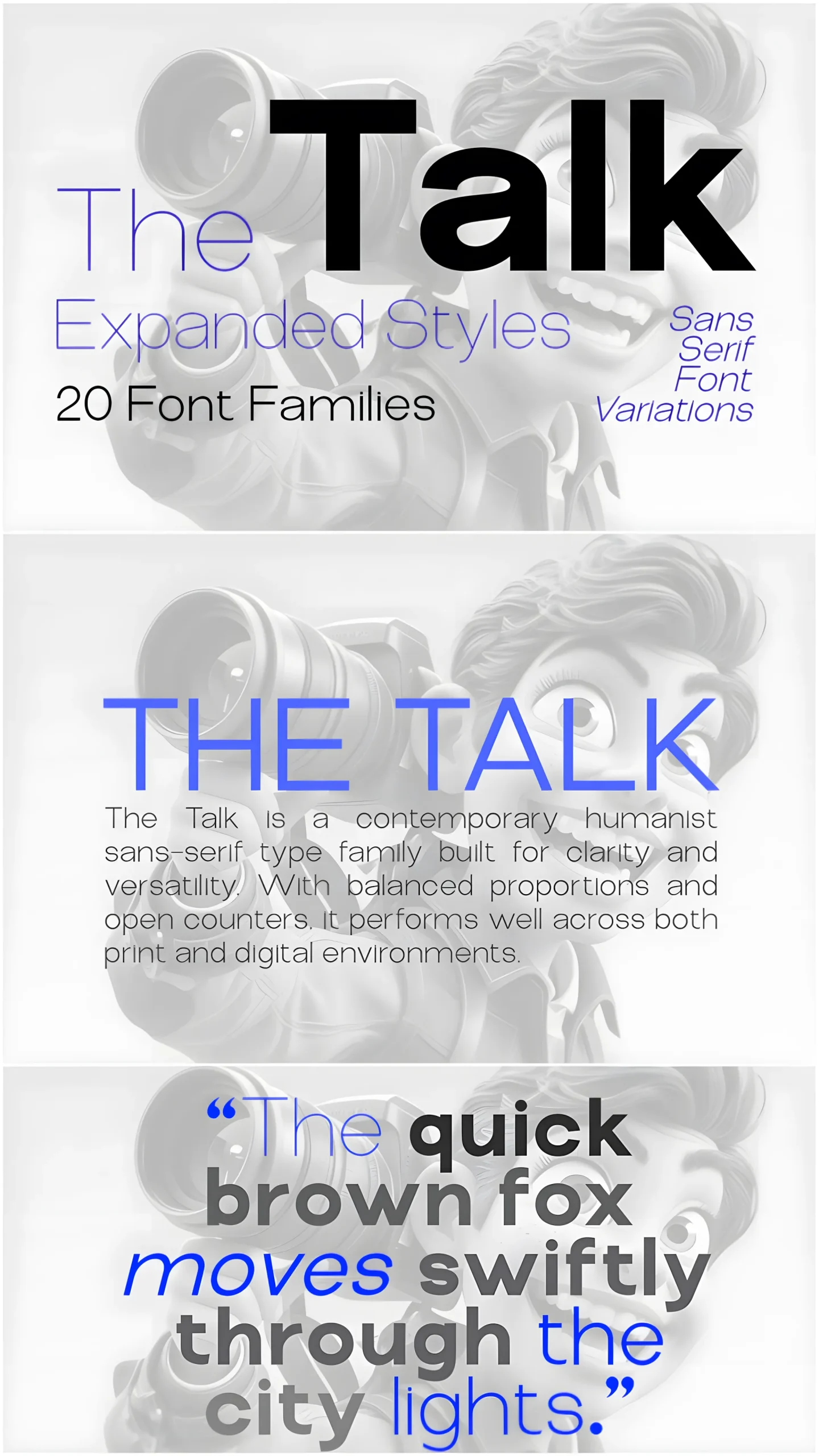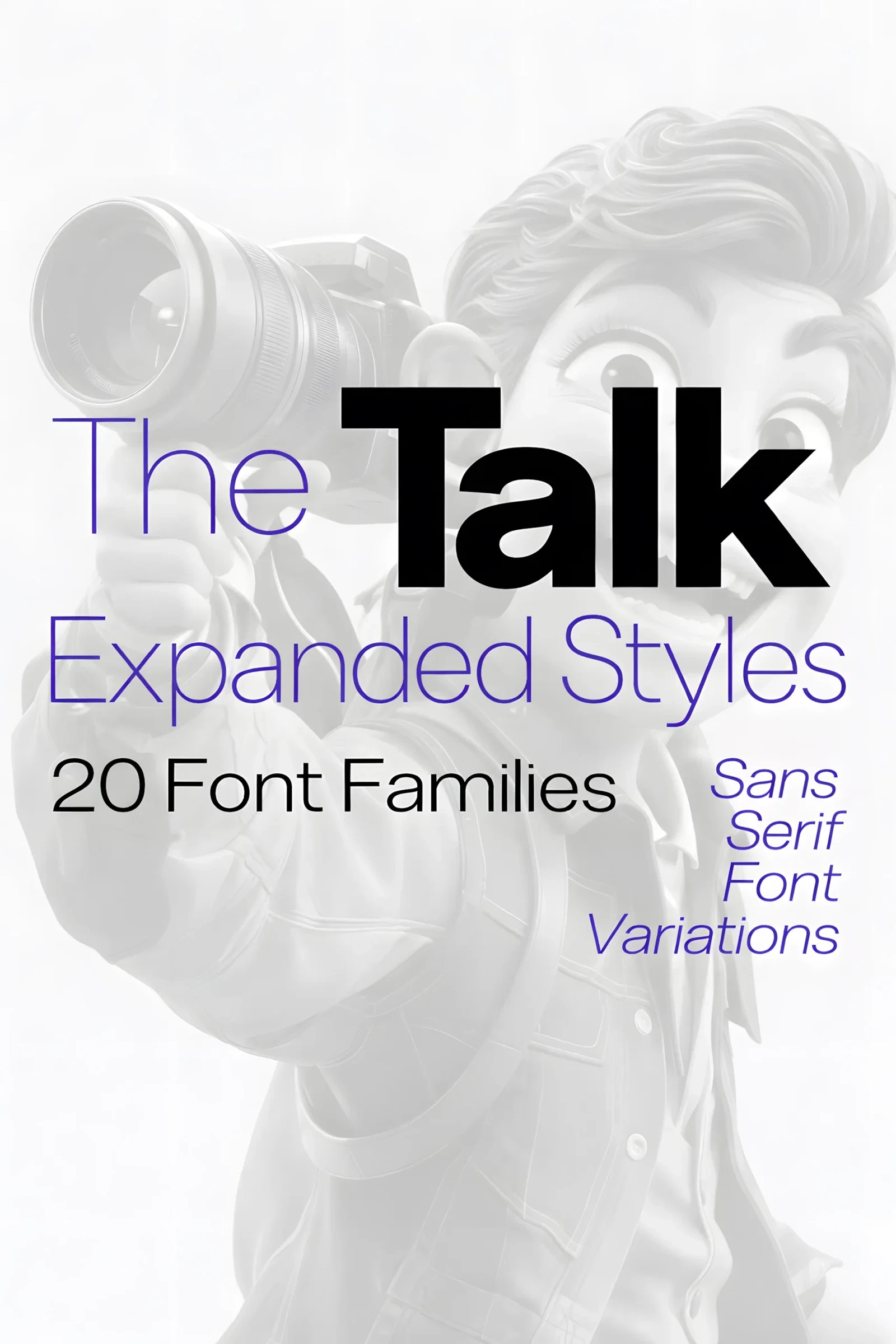
Some fonts are created to fill space. The Talk Expanded Font is created to shape it. This modern sans-serif type family is built around width, openness, and balance, giving designers a tool that feels confident, premium, and unmistakably contemporary.
With its expanded proportions and clean geometry, the font immediately creates breathing room in layouts. Text feels intentional and spacious, making it ideal for projects where visual impact and clarity need to work together rather than compete.
Designed Around Space and Presence
The defining characteristic of The Talk Expanded is width. Each character is extended horizontally, creating a bold visual footprint without adding unnecessary weight. This approach gives words more presence while maintaining a refined, controlled appearance.
Open counters and balanced geometry ensure that even wide letterforms remain readable. The font feels confident, not crowded — a key advantage in modern branding and large-format design.
This structure naturally communicates:
- confidence
- modern luxury
- clarity
- authority
without relying on decoration.
A Complete Typeface System
The Talk Expanded is not a single font but a full type family designed for flexibility and consistency. It includes 10 weights, ranging from Thin Expanded to Black Expanded, each available in Upright and Italic styles.
This allows designers to build entire visual systems using one typeface:
- light weights for refined layouts
- regular and medium for editorial balance
- bold and black for strong headlines
- italics for emphasis and contrast
The weights work cohesively, preserving rhythm and hierarchy across layouts.
Visual Character and Typographic Feel
Despite its width, the font remains calm and structured. Straight lines, soft curves, and even spacing give it a polished, professional tone. It feels modern without being cold and bold without being aggressive.
Key visual qualities include:
- extended letter width for premium impact
- clean sans-serif construction
- generous spacing without imbalance
- strong readability at large sizes
Uppercase text looks especially powerful, making the font ideal for headlines and branding.
Where The Talk Expanded Performs Best
Branding and Luxury Identity
The font is particularly effective in branding projects that require presence and elegance. It works well for:
- luxury and premium brands
- fashion and lifestyle labels
- modern corporate identities
- high-end product branding
The expanded proportions help brand names stand out without excessive styling.
Editorial and Display Typography
In editorial contexts, The Talk Expanded shines in:
- magazine covers
- section headers
- posters and billboards
- campaign visuals
Its width creates natural emphasis, reducing the need for additional graphic elements.
Digital, UI, and Campaign Design
Despite its display strength, the font adapts well to digital use. It works effectively for:
- website hero sections
- landing pages
- digital campaigns
- interface headlines
The clean structure ensures clarity across different screen sizes and resolutions.
Because it avoids short-lived trends, it remains relevant across long-term projects and evolving brand identities.
Why Expanded Sans-Serif Fonts Stand Out
Expanded fonts have become increasingly popular because they balance minimalism with authority. They create impact through proportion rather than decoration.
The Talk Expanded succeeds because it:
- uses space as a design element
- maintains clarity at scale
- feels premium without excess
This makes it especially effective for modern visual communication.
Who This Font Is Best For
The Talk Expanded is especially well suited for:
- branding and identity designers
- editorial designers
- agencies and studios
- digital product teams
- anyone building bold, modern visual systems
It works best where typography needs to lead, not follow.
Final Perspective
The Talk Expanded Font is designed around intention and space. Its extended proportions, wide weight range, and clean construction make it a powerful tool for contemporary design work.
For designers seeking a modern sans-serif that communicates confidence, clarity, and premium presence, The Talk Expanded offers a refined typographic foundation that scales across branding, editorial, and digital environments.